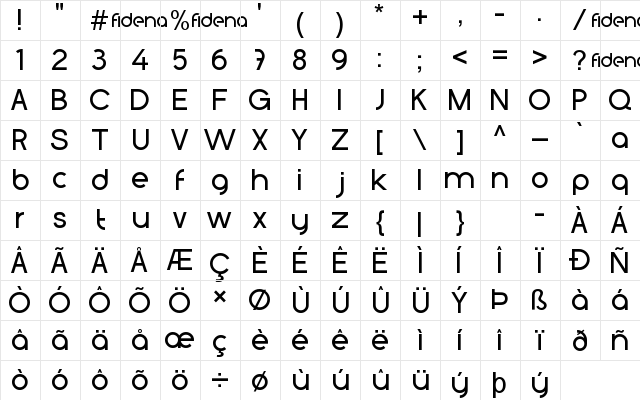
Fidena Regular
| Designer | Pandanwangi2020 |
Design Context for Fidena Typeface
Fidena offers clean, dependable letterforms without strong stylistic allegiance, making it a practical choice for designers who need flexibility.